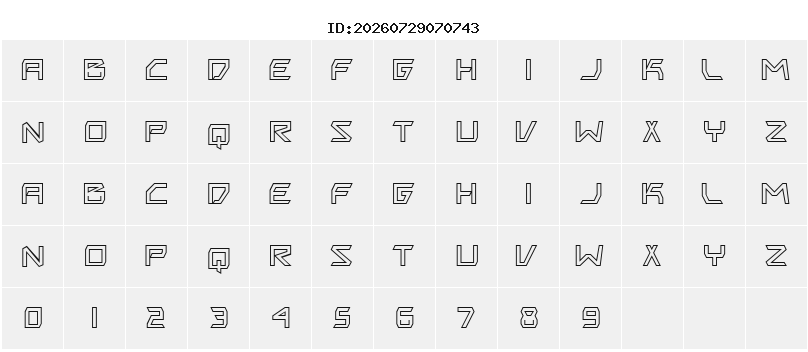
JI-Sitcom Preview
• Font Name: JI-Sitcom
• Full Font Name: JI-Sitcom
• Designer: JupiterImages
About JI-Sitcom.ttf
JI-Sitcom.ttf is a modern, elegant sans-serif font designed for ultimate readability and visual harmony. Perfect for branding, headlines, web design, and print materials.